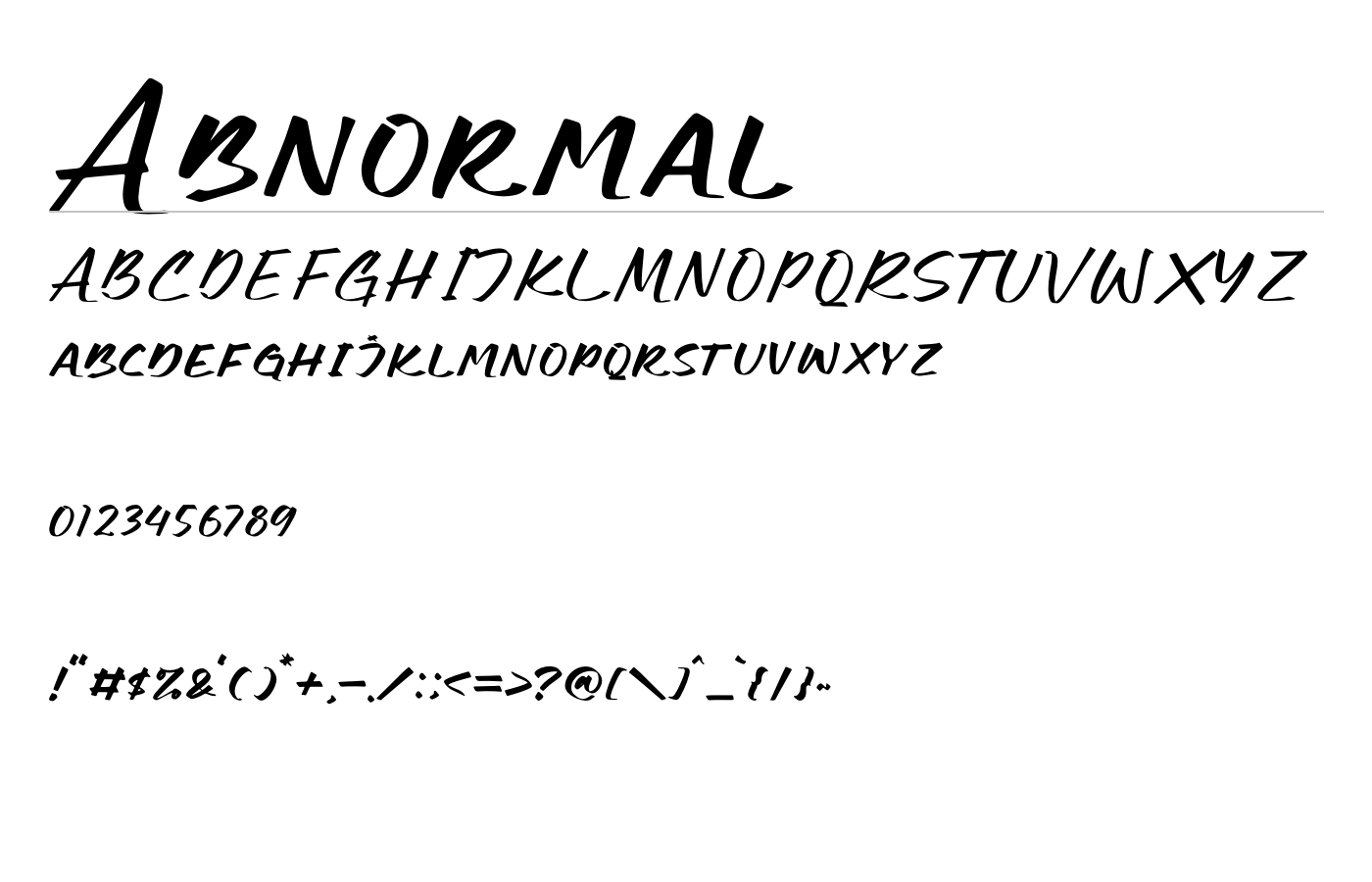
Abnormal Font is a dynamic, brush-script style typeface with a casual yet expressive character. Its irregular strokes and slightly slanted angles create an energetic and informal feel, making it ideal for creative projects, branding, and headlines that need a personal, handcrafted touch. This font works well for designs aiming to convey emotion and uniqueness, such as posters, logos, and artistic packaging.
Abnormal Font
About Abnormal Font